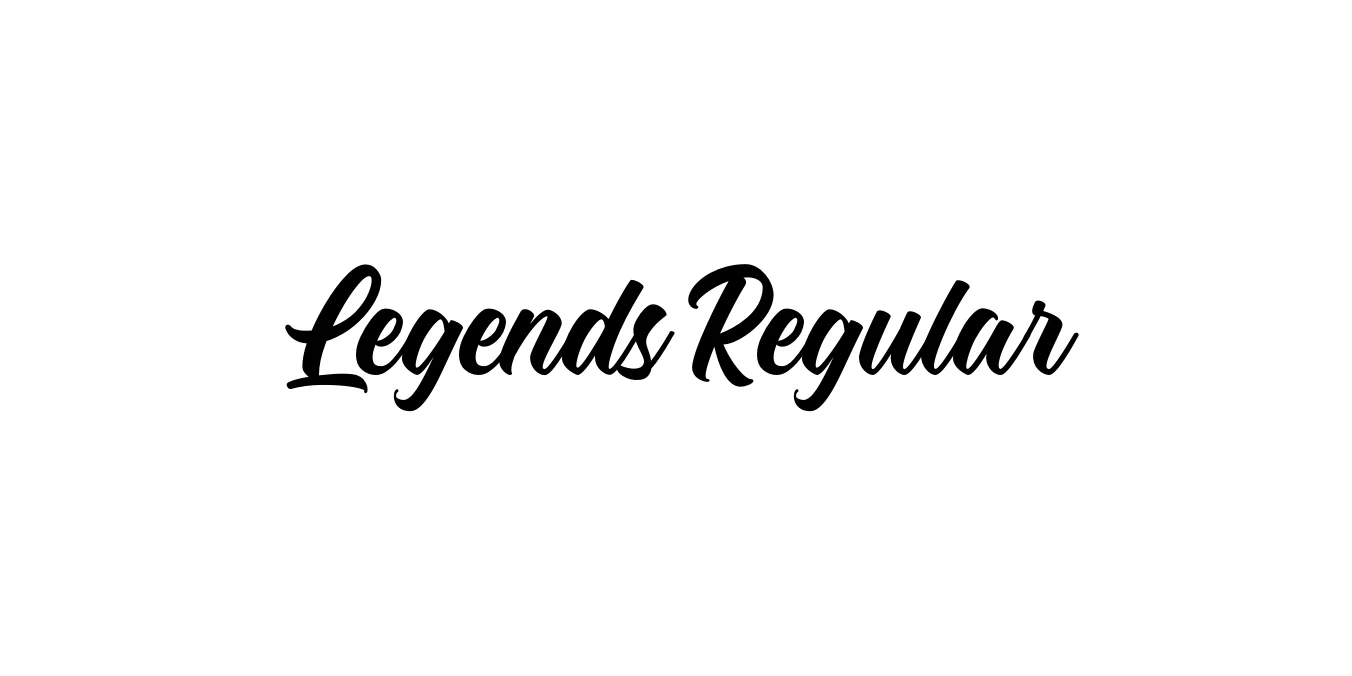
Legends Regular
Designed by The Routine Creative
| Category | Script / Display |
| Designer | The Routine Creative |
Legends Regular is a stylized brush script typeface that captures the essence of mid-century Americana and vintage sports branding. Developed by The Routine Creative, this font features fluid, handcrafted strokes that provide a sense of authenticity and dynamic motion. Its design is heavily influenced by hand-painted signage and classic athletic logos, making it a standout choice for projects that require a nostalgic yet high-energy aesthetic.
The typeface is characterized by its hand-drawn personality and balanced weight, ensuring it remains legible while making a bold visual statement. Because it avoids a strictly mechanical feel, it is widely utilized by graphic designers for custom apparel, mascot logos, and high-impact advertising headlines. Whether used for a retro-themed brand or a modern streetwear project, Legends Regular offers a versatile toolkit for creative expression.
Legends Regular Best Uses
Perfect for creating team logos, jersey designs, and mascot identities.
Highly effective for t-shirt graphics, hoodies, and streetwear labels.
Great for bold, high-energy headlines in posters and social media banners.
Ideal for brands looking for a custom, handcrafted retro aesthetic.